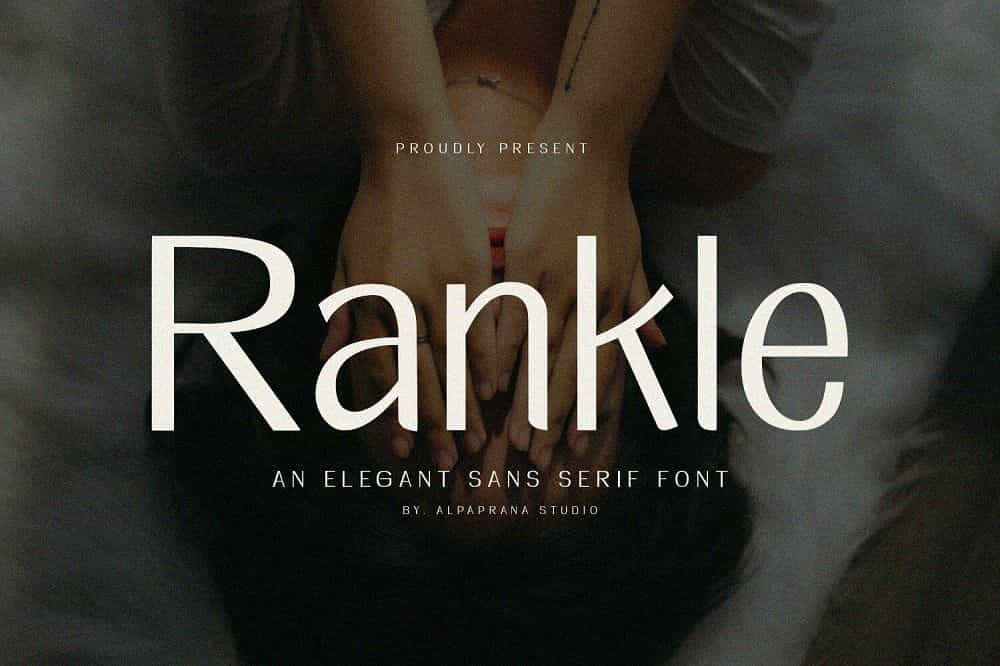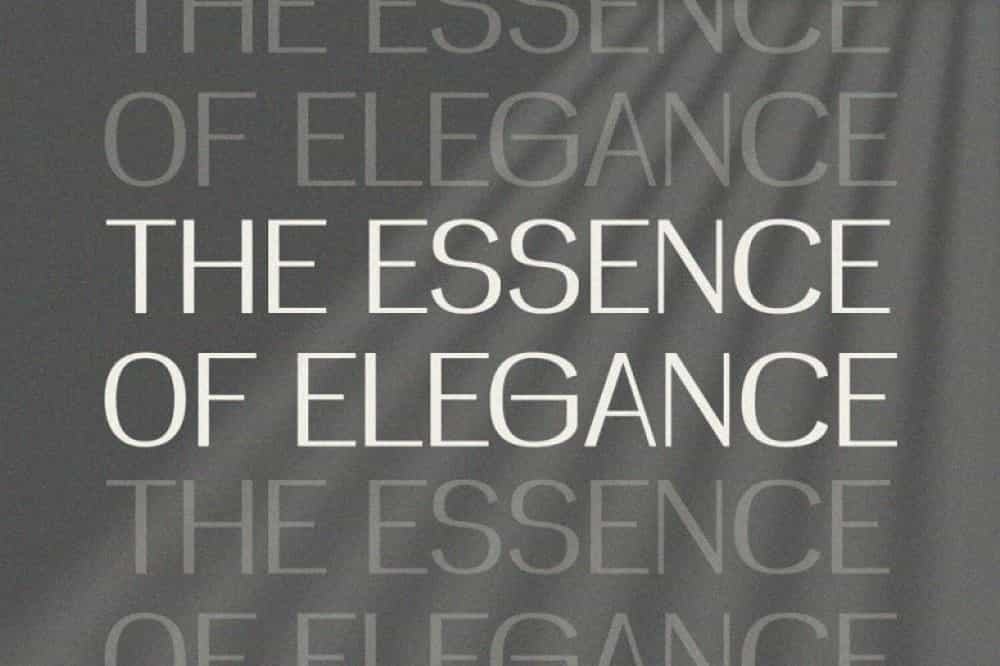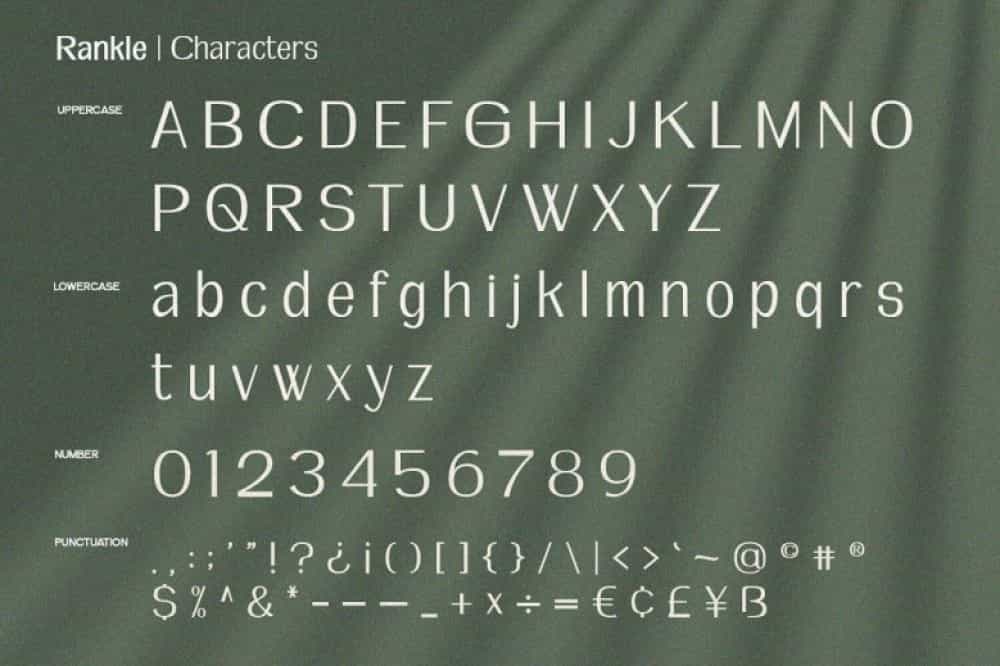
Rankle is a sans serif font with elegant and modern looks to it. This can be well employed for Branding, Logo Design, Lettering, Logotype, Clothing, Poster, Magazine, packaging, Posters, Shopping bags, T-shirts, Book covers, Photography, Special events, and any other related design work.